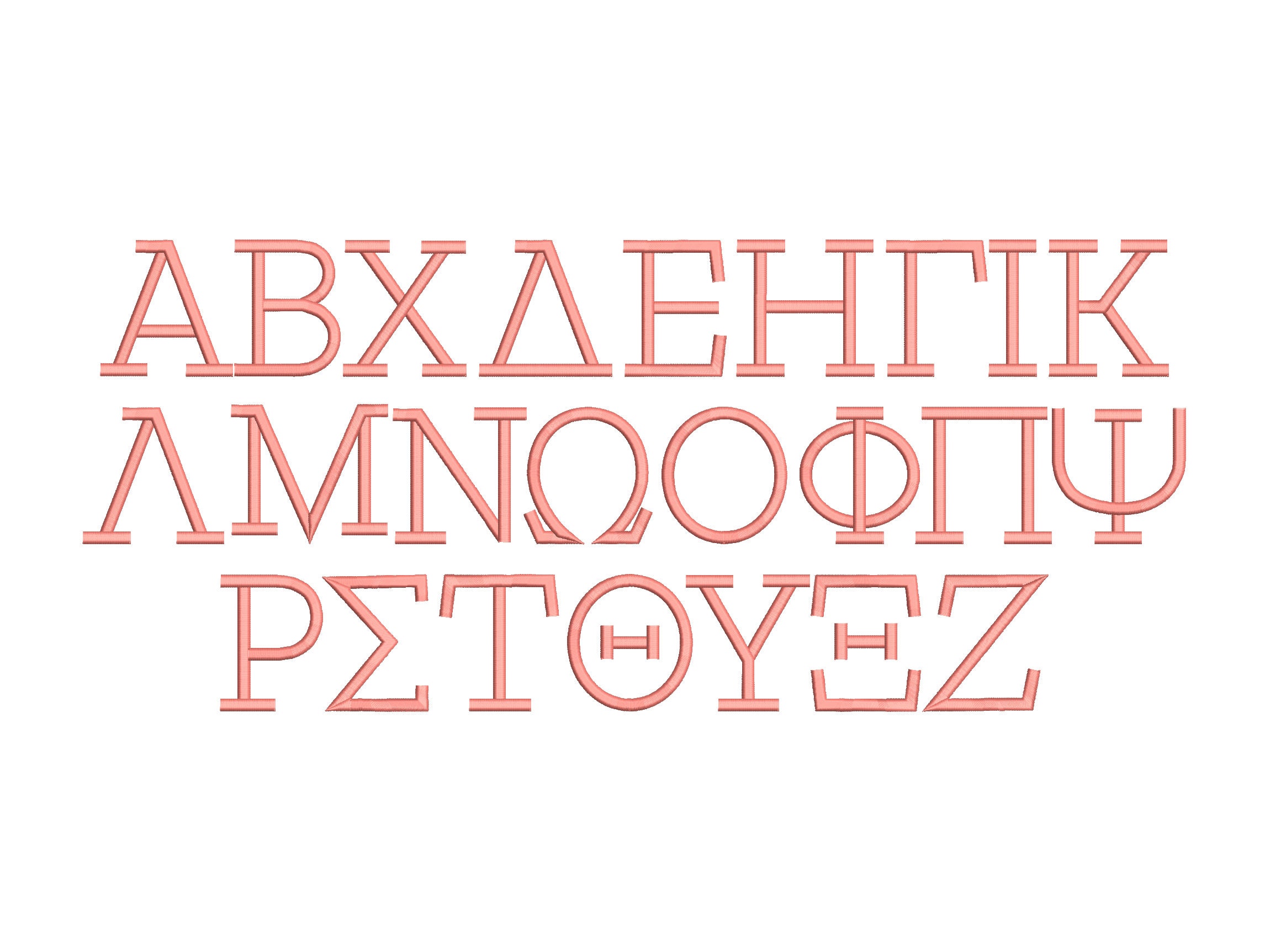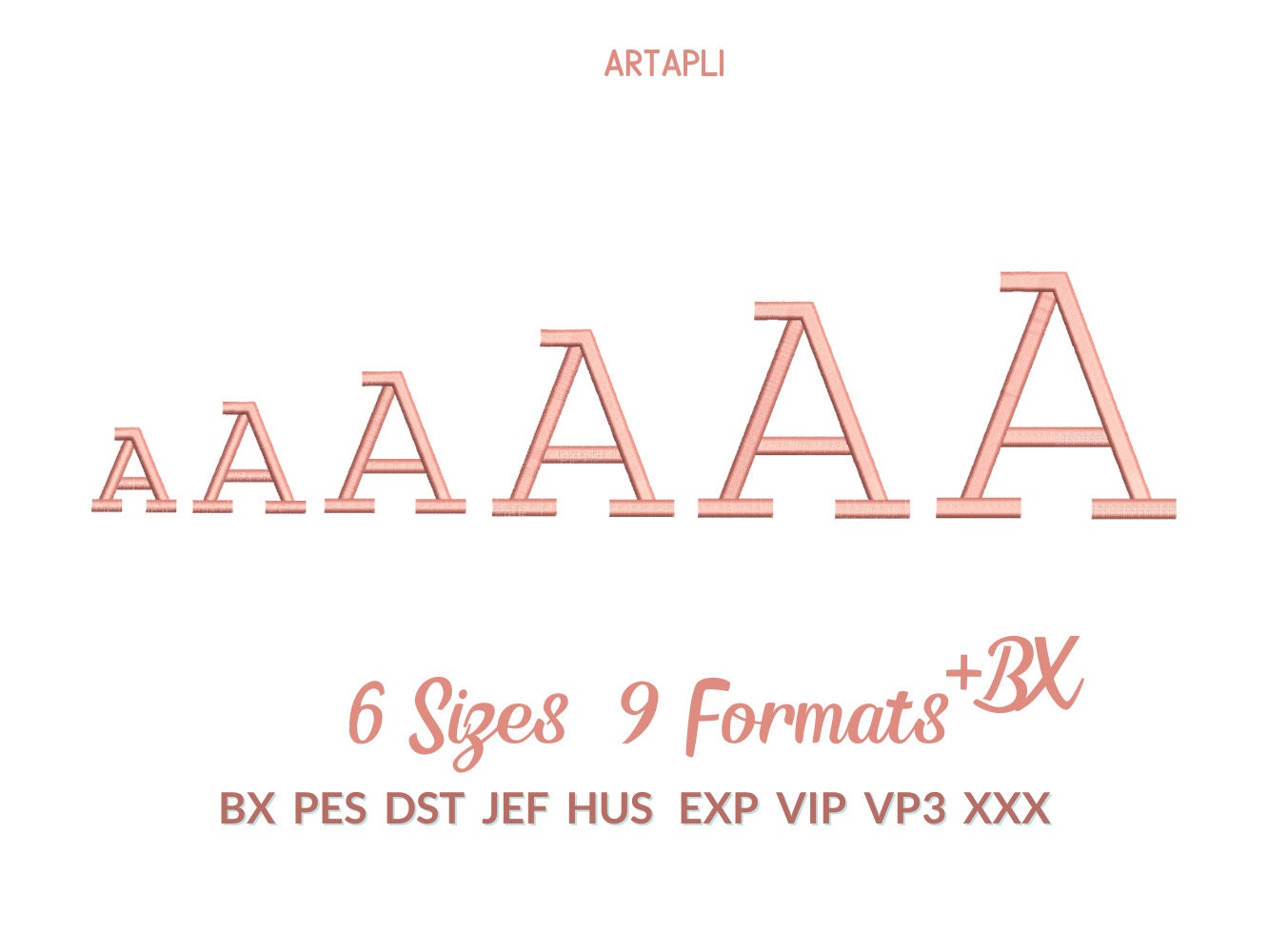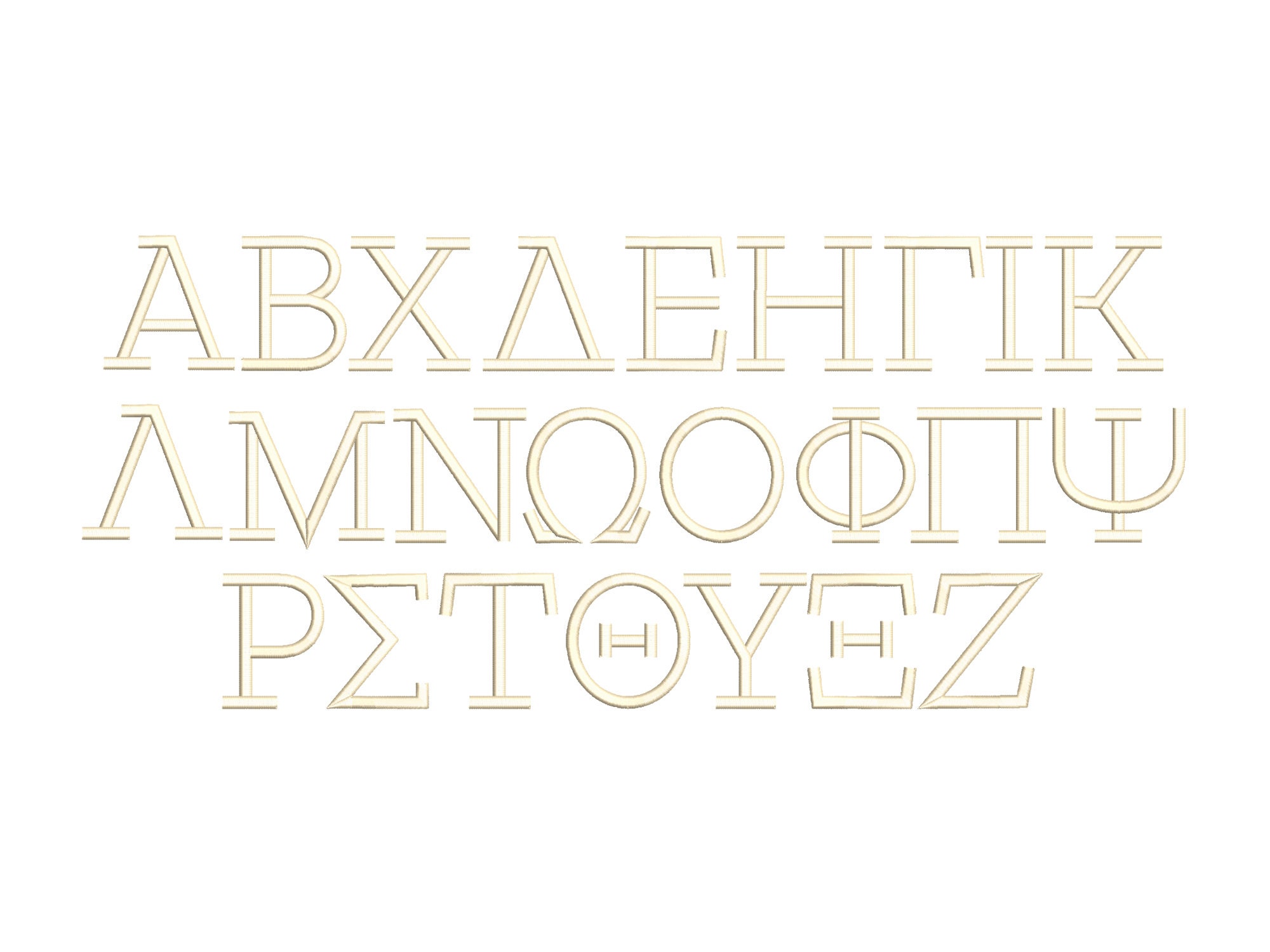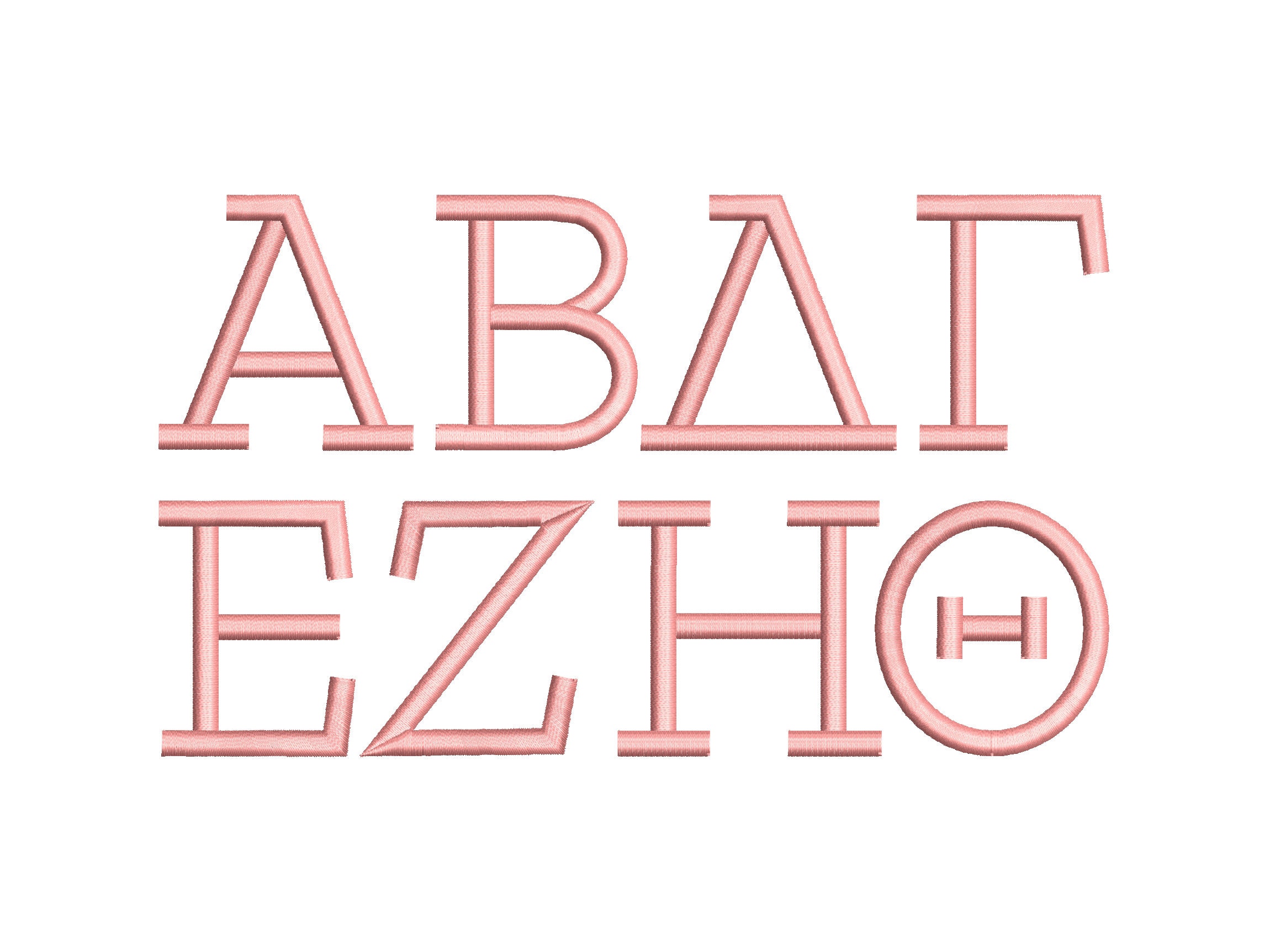
Greek Font Satin Stitch Greek Alphabet letters block Font machine embroidery designs assorted sizes 1.2 up to 3.5 inch Alpha Beta Gamma, BX
The whole alphabet Alpha-Zeta uppercase letters.